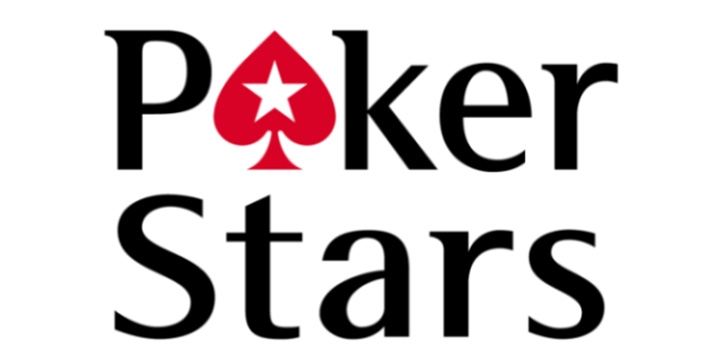
What Font Does PokerStars Use For The Logo?
The font used for PokerStars logo is Rotis Semi Serif Bold, which is a transitional serif font designed by Otl Aicher and published by Monotype. Here's the download link.